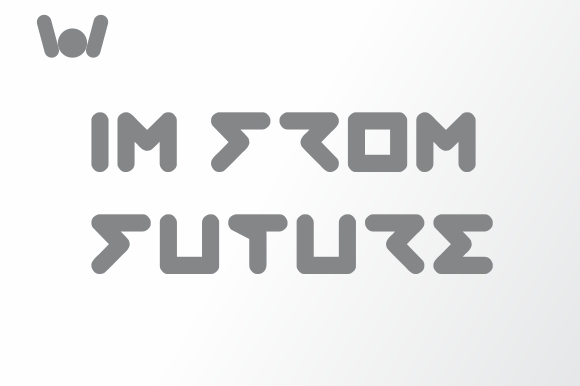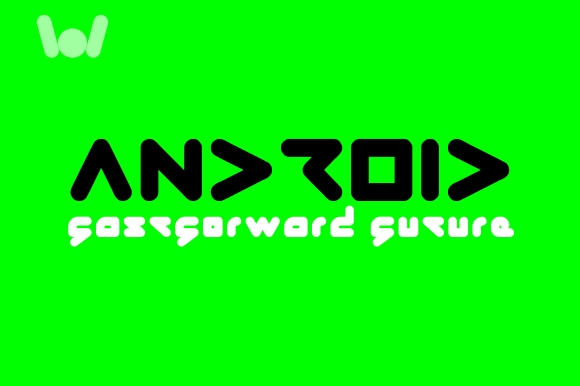
Level Up Your Design Game with Abstrasctik Font
Have you ever stared at a blank canvas, desperately trying to conjure up the perfect font to bring your design to life? It’s a feeling every creative has been there, right? For me, it was a late-night brainstorming session, surrounded by scattered papers, coffee cups, and a faint glow of my computer screen. And then, it hit me – the perfect font to elevate my design from ordinary to extraordinary. That font was Abstrasctik Font, a futuristic and friendly sans-serif that added a touch of vintage video game charm to my project.
Abstrasctik Font is more than just a pretty face; it’s a versatile tool that can add a unique twist to any design style. With its rounded edges and sleek lines, it’s perfect for creating eye-catching logos, advertisements, and even video game-inspired graphics. As a designer, you’ll love how Abstrasctik Font can instantly add a vintage vibe to your projects, making it a valuable addition to your design toolkit.
- Unique Characteristics: Abstraktik features a unique blend of geometric and organic elements, giving it a distinctive and modern look.
Review of Abstractik Font
Overall, I’d say Abstractik Font is a decent addition to any designer’s toolkit, but it’s not without its quirks. Let’s dive into the good and the bad.
- Unique aesthetic: Abstractik Font brings a fresh, modern vibe to any design project.
- High-quality typography: The font is well-crafted, with smooth lines and precise letterforms.
- Great for digital design: Abstractik Font looks fantastic on screens, making it perfect for websites, apps, and other digital media.
- Limited language support: Abstractik Font only includes a basic character set, which may not be suitable for projects that require extensive language support.
- No italic or bold styles: While the font looks great in its regular weight, the lack of italic and bold styles can limit its versatility.
- Not ideal for print design: The font’s digital-centric design may not translate well to print media, where texture and tactility are crucial.
Overall, I’d recommend Abstractik Font for digital design projects where a unique, modern aesthetic is a must. However, its limitations make it less suitable for projects that require extensive language support or print design.
Absrakstik Font is commonly used in creative and artistic projects, such as:
- Graphic design
- Typography-based art